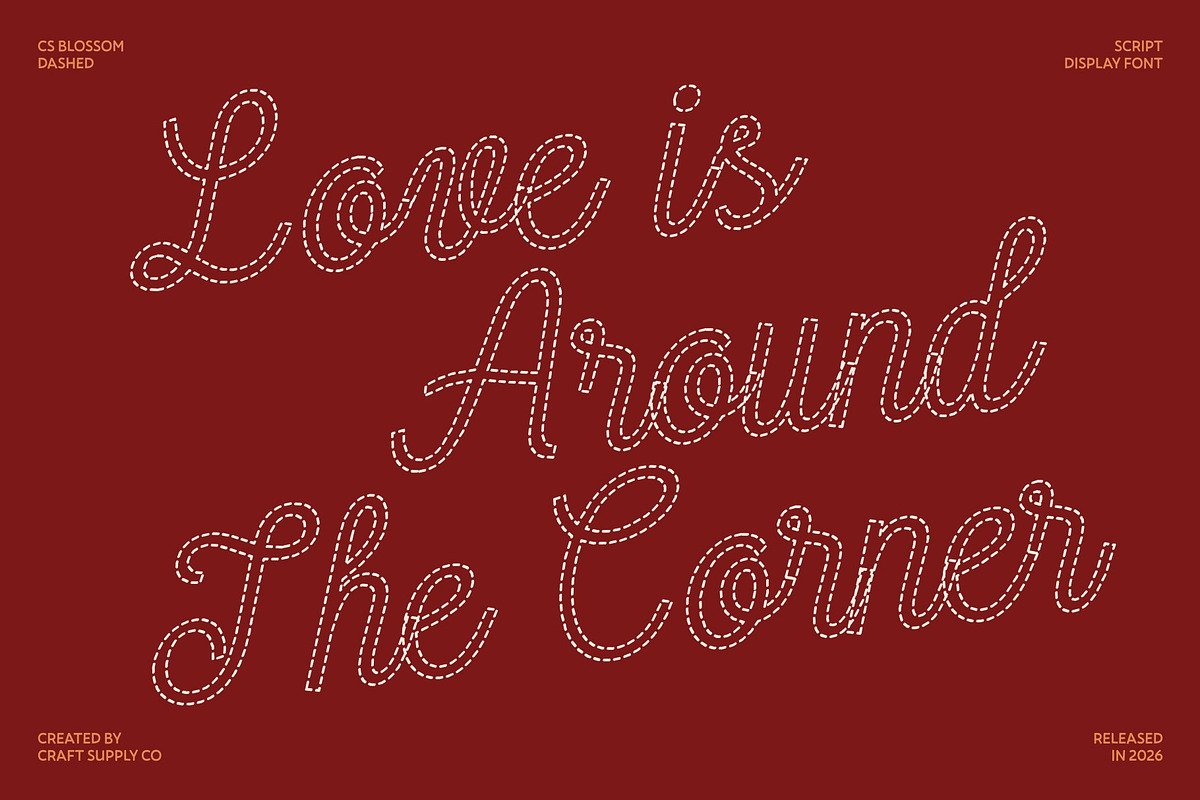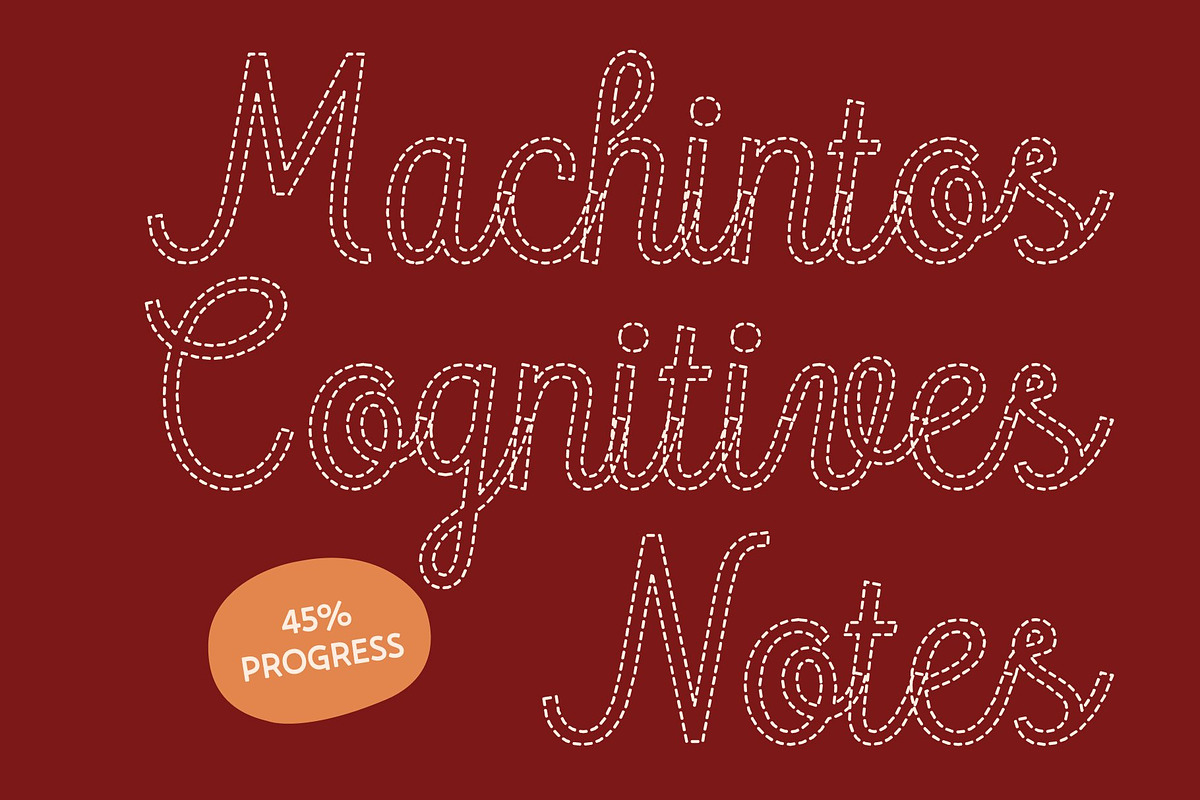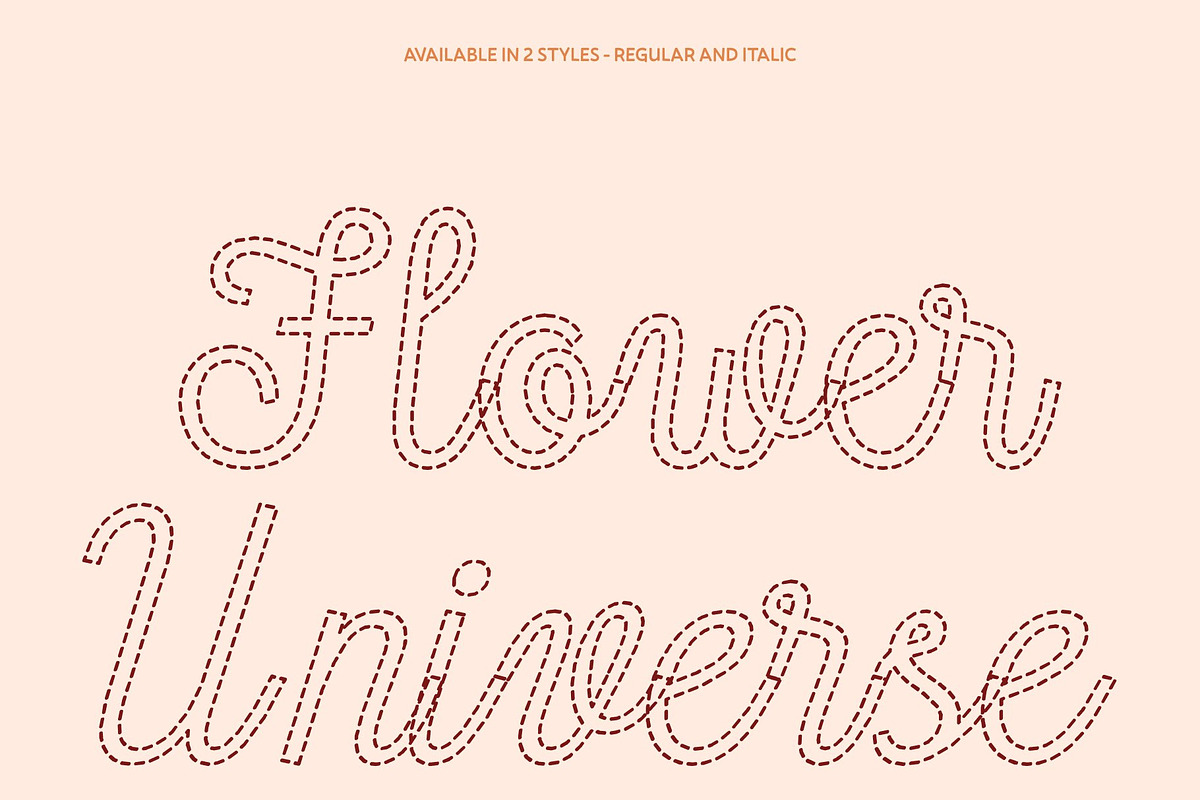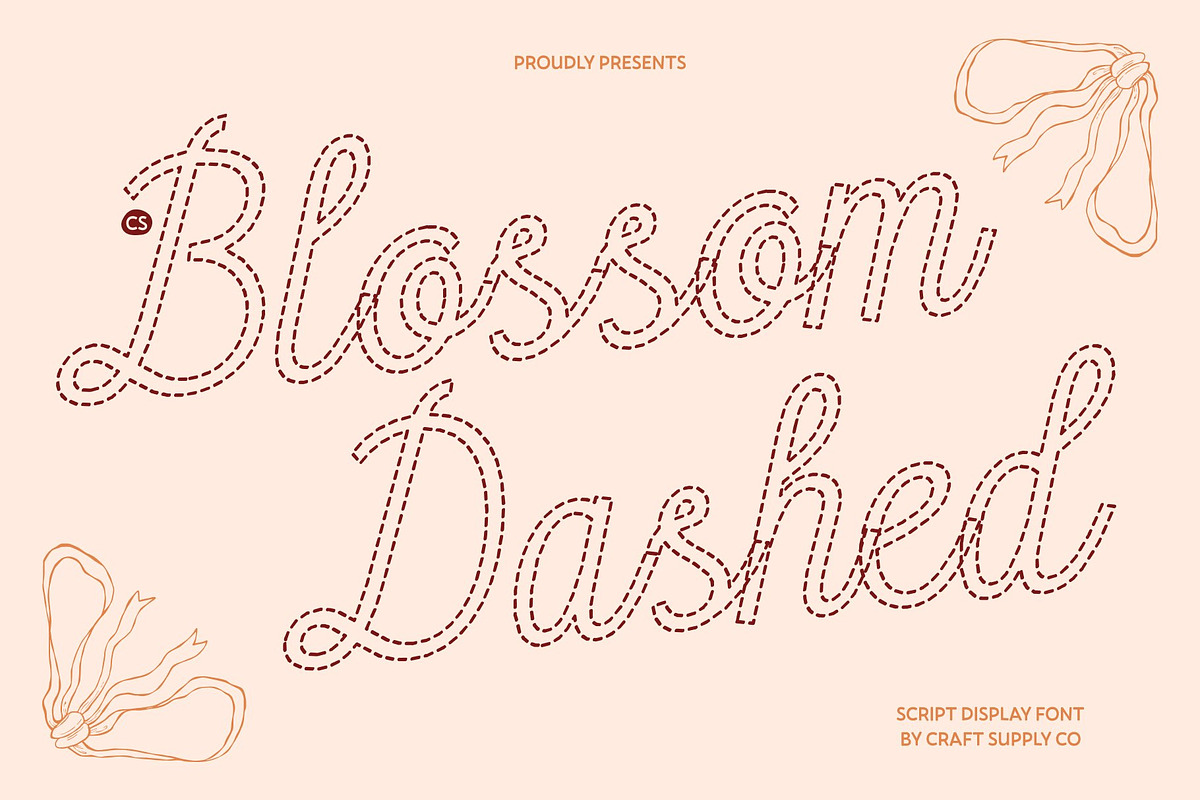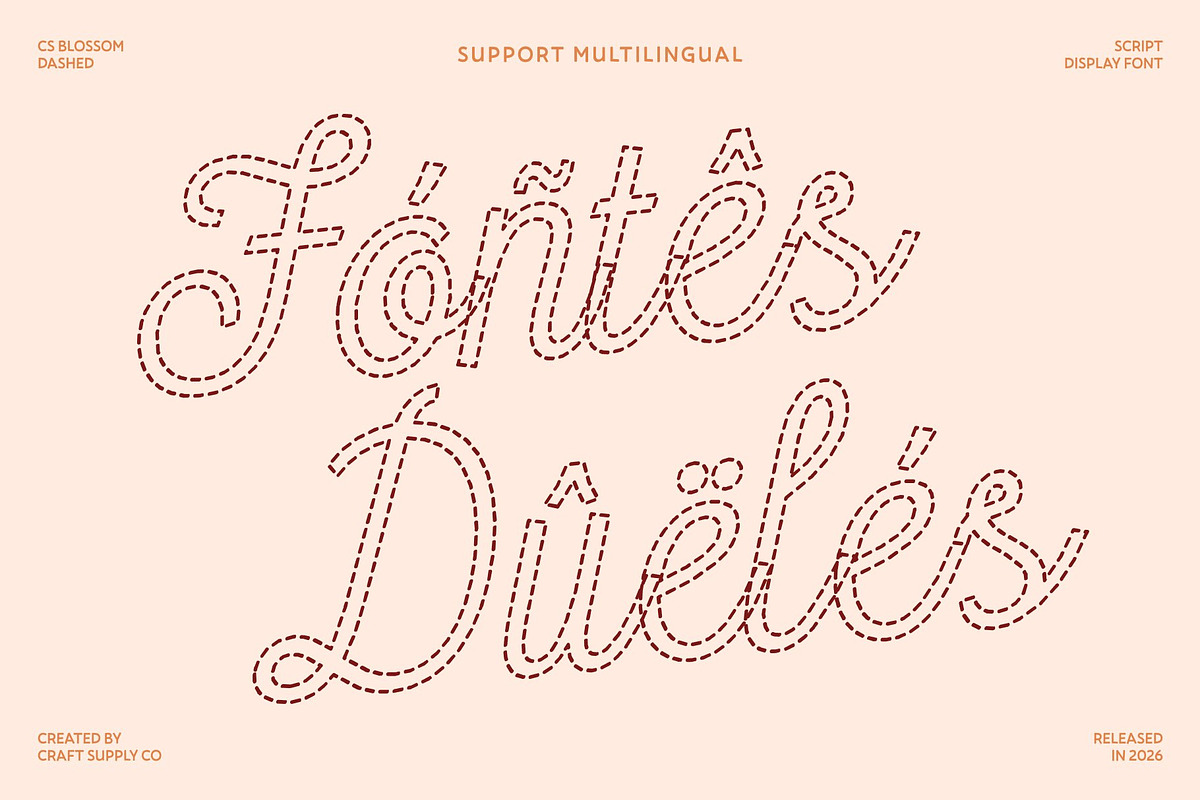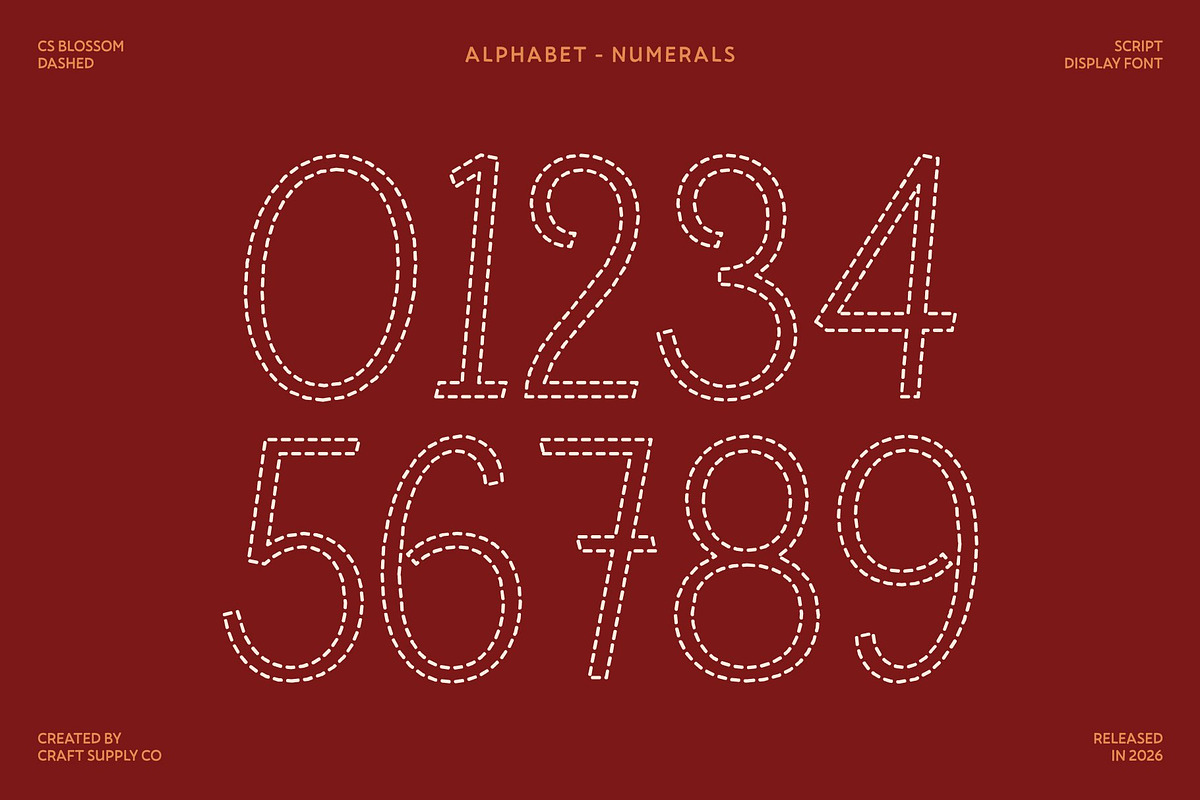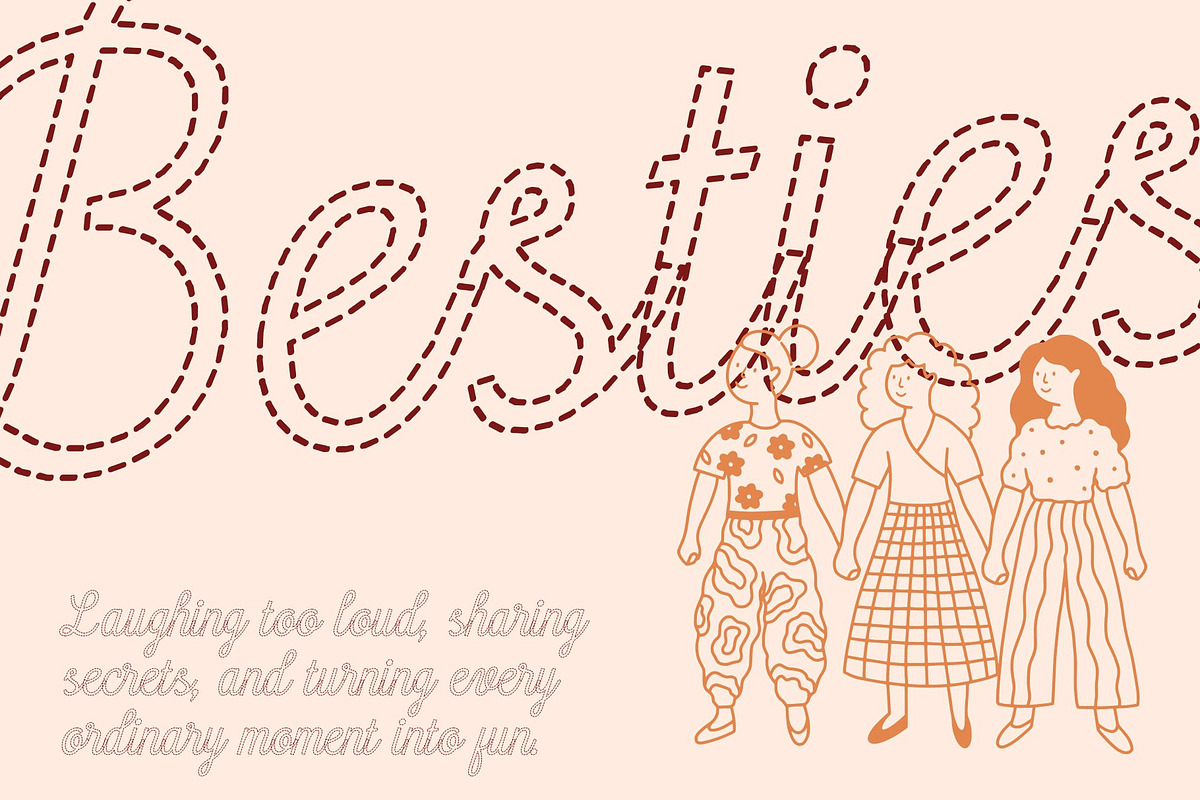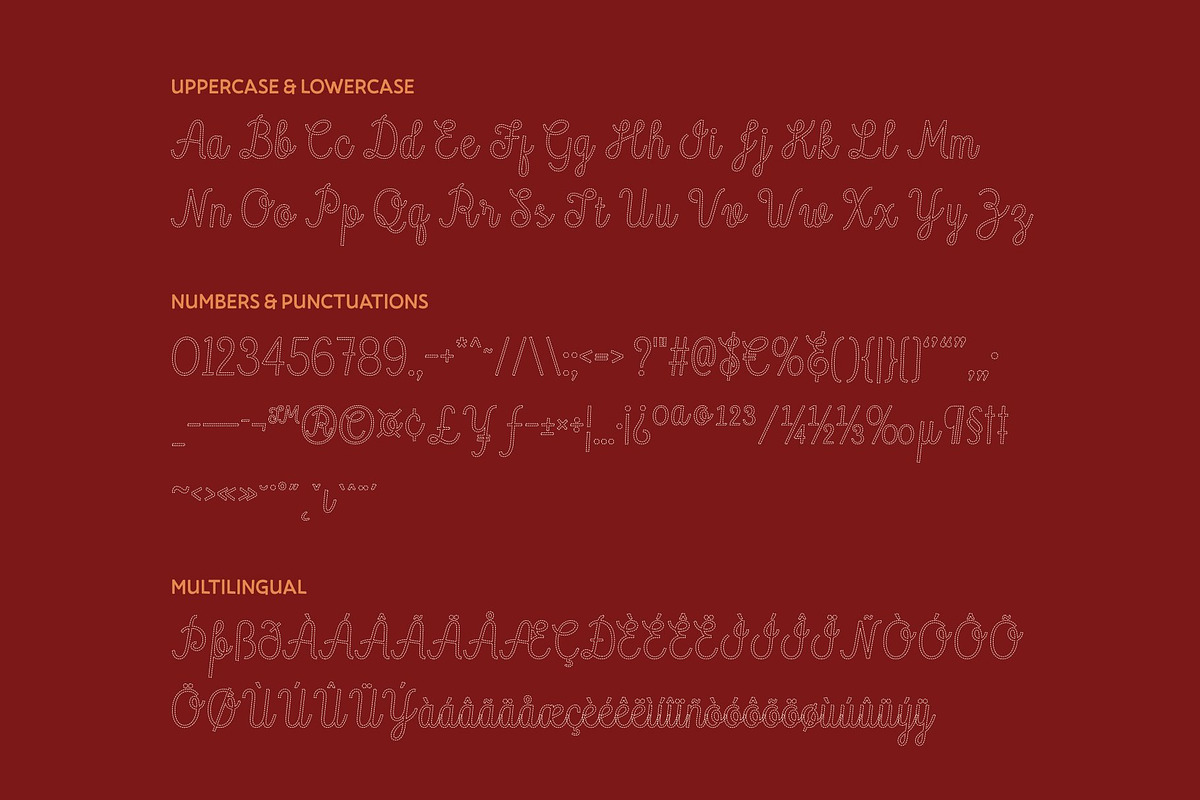
CS Blossom Dashed
CS Blossom Dashed – Script Font Where Elegance Feels Personal
Graceful Handwritten Style in a Light Dashed Form This font reimagines elegant handwriting with delicate broken strokes that feel soft, airy, and expressive. The gentle curves remain smooth and flowing, while the dashed structure adds a playful handcrafted texture that brings warmth and personality to every word.
Clean, Feminine, and Charming Character The refined script structure keeps its feminine beauty while the dashed effect introduces a relaxed and creative mood. This balance creates a font that feels both polished and approachable, perfect for designs that need elegance with a friendly, modern twist.
Perfect for Beauty and Lifestyle Themes Ideal for beauty branding, wedding invitations, wellness packaging, and aesthetic social media content, the dashed strokes add a light artistic feel that enhances romantic and stylish visuals without overwhelming the design.
Versatile for Creative and Personal Projects From product packaging and stationery to heartfelt quotes and digital campaigns, this font blends personal expression with contemporary design. The broken strokes give the font a lively rhythm, helping your visuals bloom with charm, grace, and creative warmth.
CS Blossom Dashed Regular
CS Blossom Dashed Italic